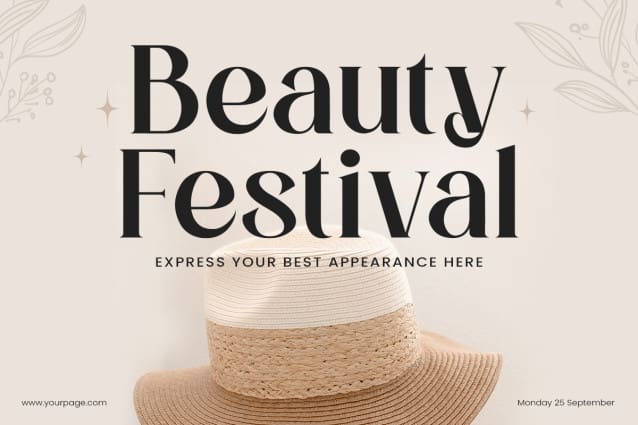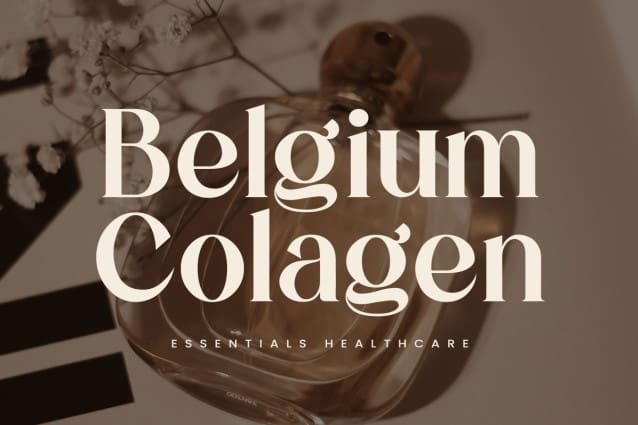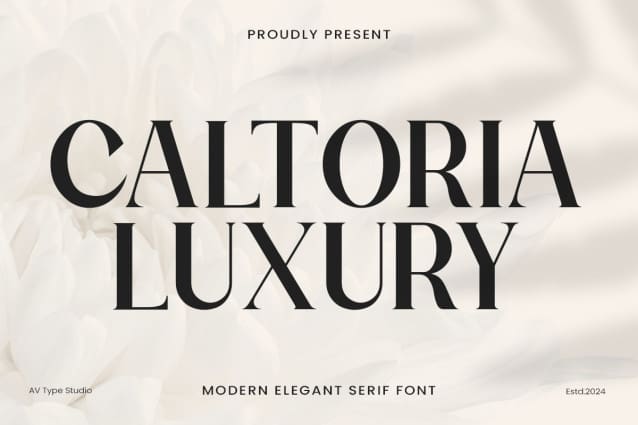
Caltoria Luxury Font
Caltoria Luxury Font, a bold serif designed to bring elegance and flexibility to a variety of design projects. Featuring both uppercase and lowercase letters, Caltoria Luxury is perfect for creating timeless headlines, elegant invitations, refined branding, and more. Its classic, luxurious style ensures your designs stand out with a polished and professional touch.
Complete with numbers, punctuation, and multilingual support, Caltoria Luxury is ideal for a wide range of uses, from editorial layouts and packaging design to social media graphics and product labels. The font’s versatility makes it suitable for both digital and print projects, enhancing your visual identity across different mediums.
Whether you’re working on wedding invitations, high-end fashion branding, or luxury product packaging, Caltoria Luxury adds a sense of sophistication and style that elevates your designs effortlessly. Unlock its full potential and give your projects a refined edge.